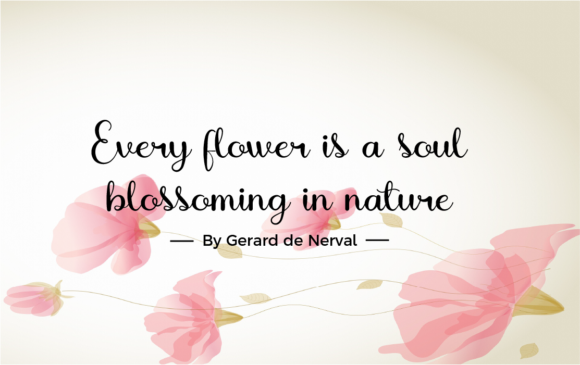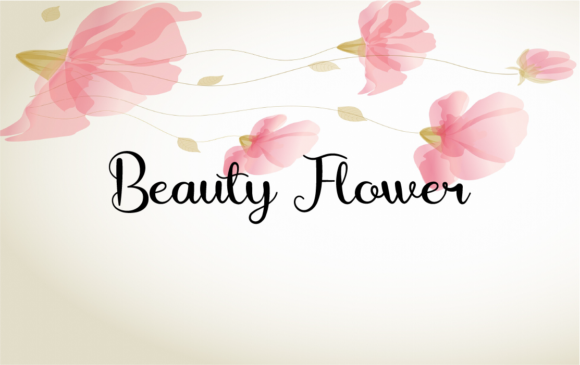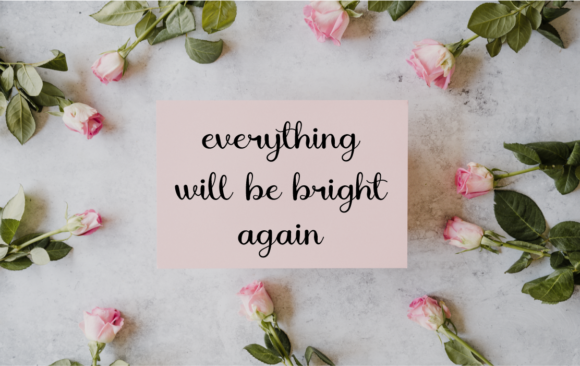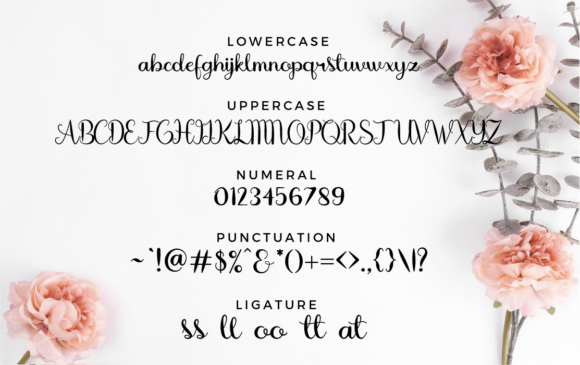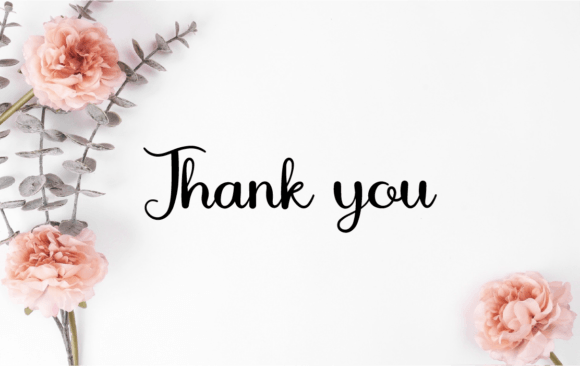
Introducing Allyra Font: Elevate Your Designs with Elegance and Class
In the world of typography, fonts play a crucial role in conveying the tone and personality of a design. For those seeking a lovely and delicate script font that exudes elegance and class, Allyra Font is an excellent choice. Crafted with precision and attention to detail, Allyra is perfect for designers and crafters looking to add a touch of sophistication to their projects.
The Beauty of Allyra Font
Allyra Font is a stunning script font that boasts a unique and refreshing look. Its delicate strokes and elegant curves make it an ideal choice for a wide range of design applications, from wedding invitations and branding materials to packaging and digital media. Whether you’re a professional designer or a crafty DIY enthusiast, Allyra Font is sure to impress.
Key Features of Allyra Font
- Delicate and Elegant Design: Allyra Font features a beautiful, hand-crafted design that exudes elegance and sophistication.
- Script Font Style: Allyra is a script font that adds a touch of personality and flair to any design.
- High-Quality Typography: Each letter and character has been carefully crafted to ensure high-quality typography that looks great in any size or format.
- Easy to Read: Despite its delicate nature, Allyra Font is easy to read, making it perfect for body text and headlines.
- Versatile: Allyra Font can be used for a wide range of design applications, from digital media to print materials.
Use Cases for Allyra Font
Allyra Font is an incredibly versatile font that can be used for various design projects. Here are some use cases to get you started:
- Wedding Invitations and Stationery: Allyra Font is perfect for creating beautiful and elegant wedding invitations, save-the-date cards, and other stationery.
- Branding and Packaging: Use Allyra Font to create stunning brand identities, product labels, and packaging materials that exude elegance and sophistication.
- Digital Media: Allyra Font can be used for digital media, such as social media graphics, blog headers, and website designs.
- Crafting and DIY Projects: Allyra Font is also perfect for crafty DIY enthusiasts who want to add a personal touch to their projects, such as handmade cards, scrapbooking, and iron-on designs.
Tips for Using Allyra Font
To get the most out of Allyra Font, here are some tips to keep in mind:
- Pair with Neutral Colors: Allyra Font looks great when paired with neutral colors, such as white, black, or pastel shades.
- Experiment with Font Sizes: Try using Allyra Font in different font sizes to create visual interest and hierarchy in your designs.
- Add Decorative Elements: Consider adding decorative elements, such as illustrations or graphics, to enhance the elegance of Allyra Font.
In conclusion, Allyra Font is a beautiful and elegant script font that can elevate your designs to the next level. With its delicate strokes, elegant curves, and high-quality typography, Allyra Font is perfect for designers and crafters looking to add a touch of sophistication to their projects. Whether you’re creating wedding invitations, branding materials, or digital media, Allyra Font is an excellent choice.